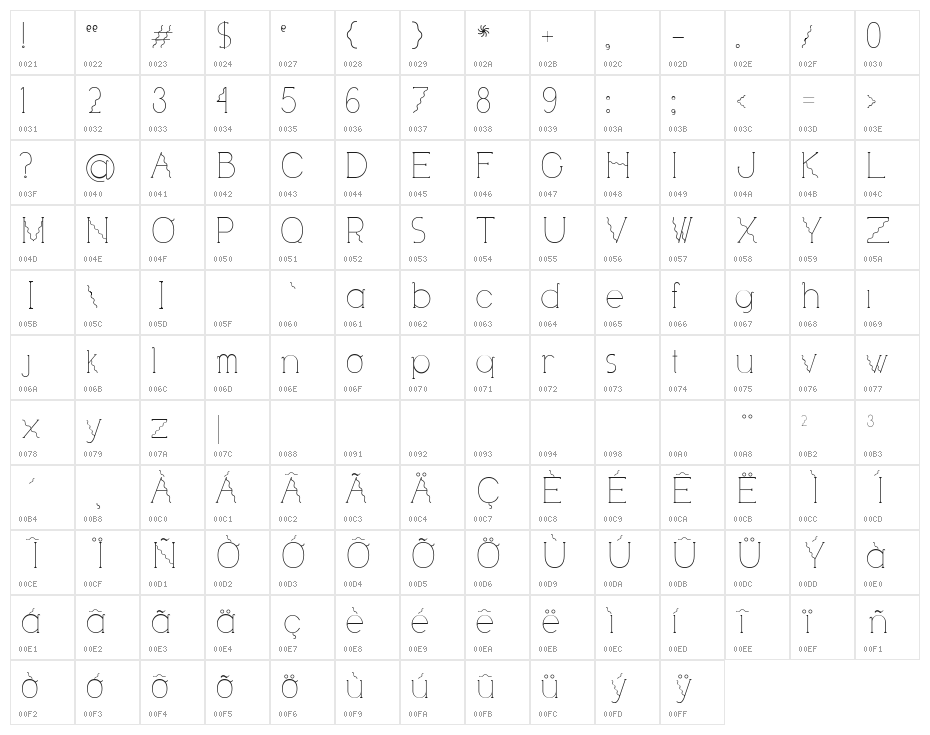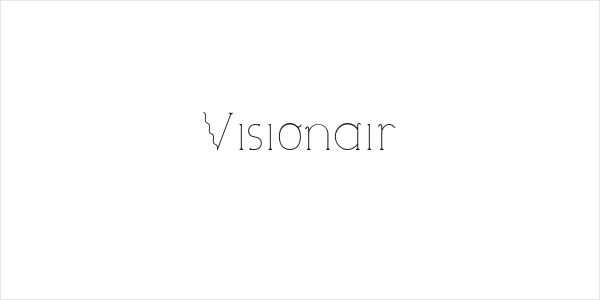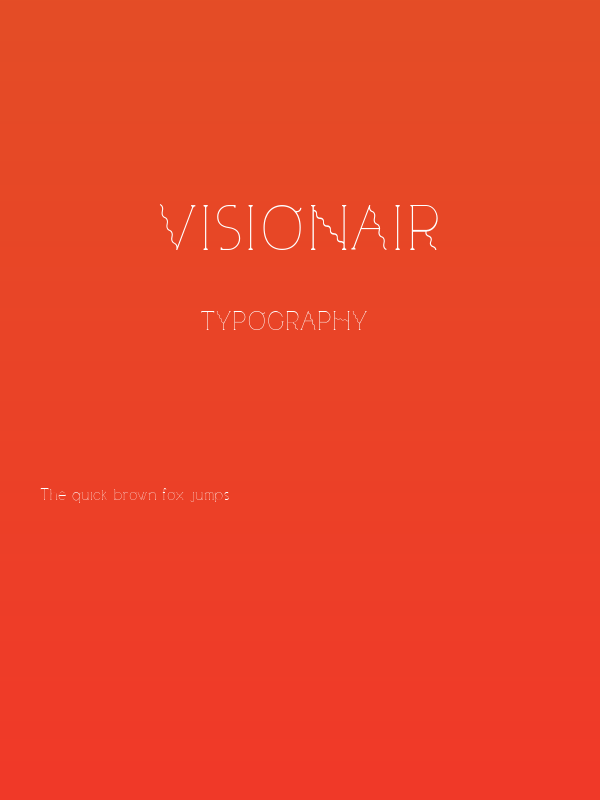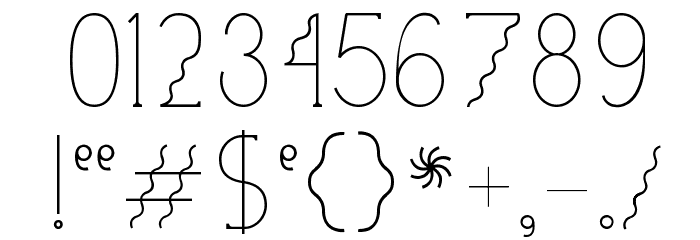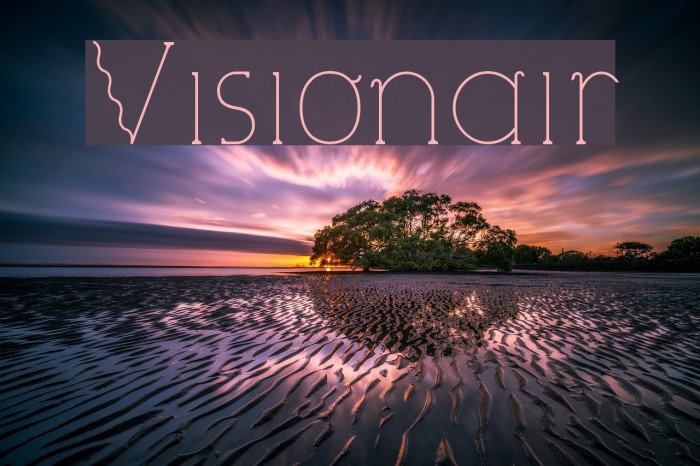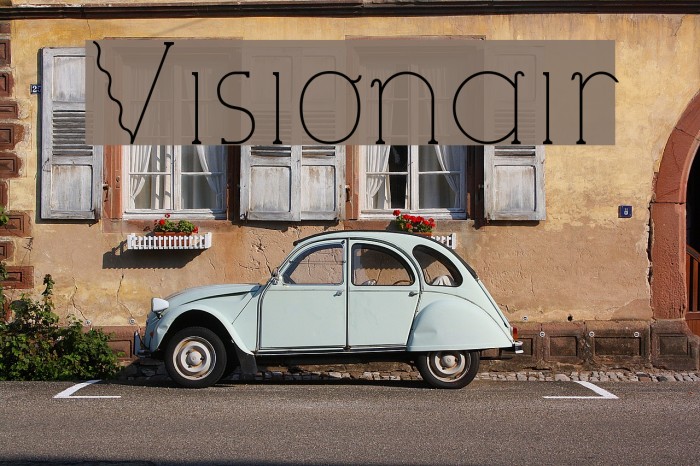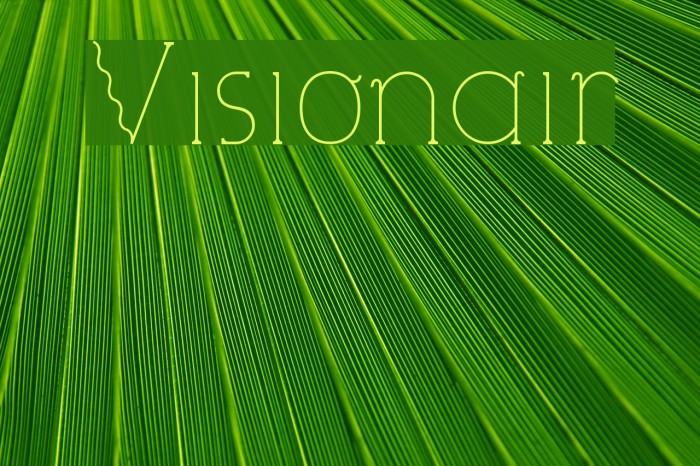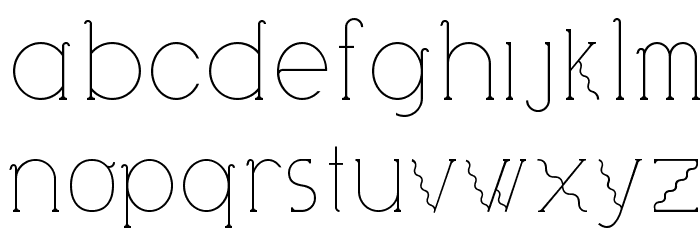
Visionair Font
Visionair Description
This font features a unique and playful design with a modern twist. The characters are primarily thin and linear, with certain letters incorporating zigzag or wave-like elements, adding a whimsical touch. The uppercase letters maintain a consistent height, while the lowercase letters are slightly smaller, preserving readability. Numbers follow the same playful style, with some digits featuring distinctive curves and angles. Special characters are creatively designed, enhancing the font's overall quirky aesthetic. This font stands out with its artistic flair, making it ideal for creative and unconventional projects.
| Use Case | Logos, Posters, Creative Projects |
| Proposed Projects | Ideal for artistic projects, branding, posters, and any design requiring a unique and playful touch. |